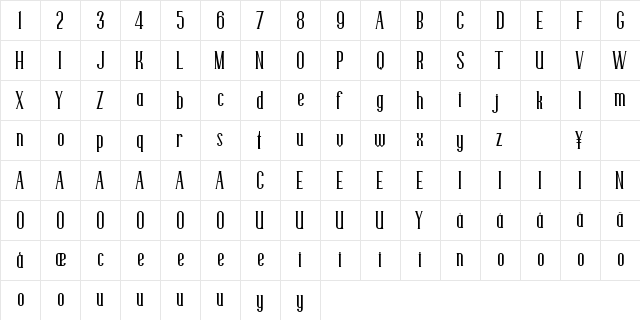
Collectials DEMO Regular
Design Context for Collectials DEMO Typeface
Collectials DEMO is a composed and adaptable typeface that performs quietly and consistently across a wide range of design contexts.